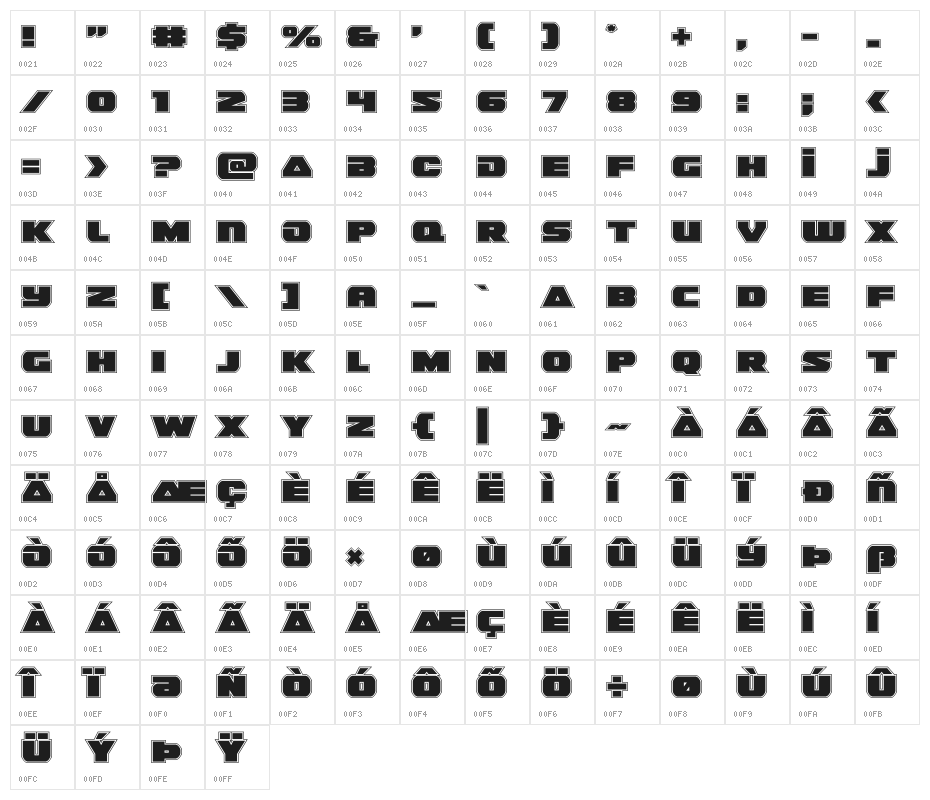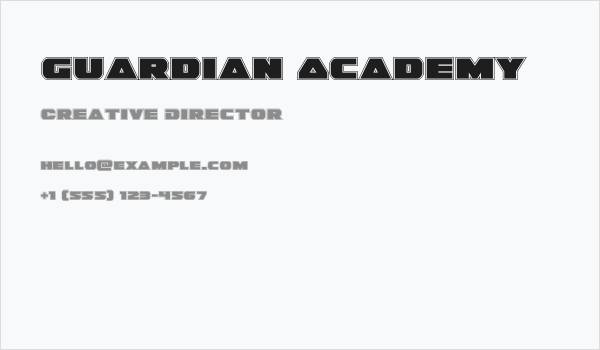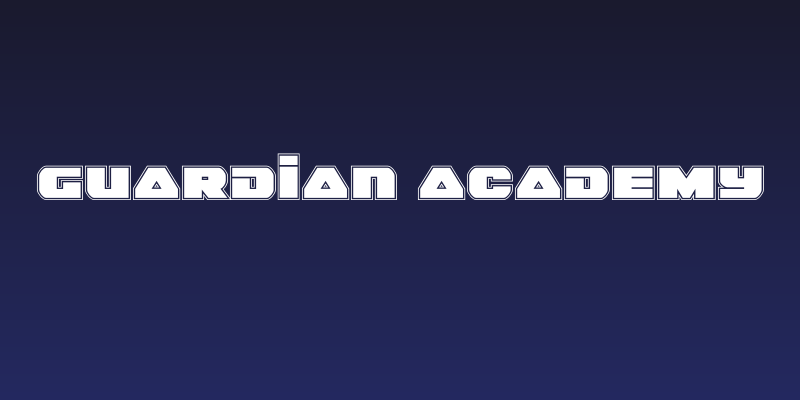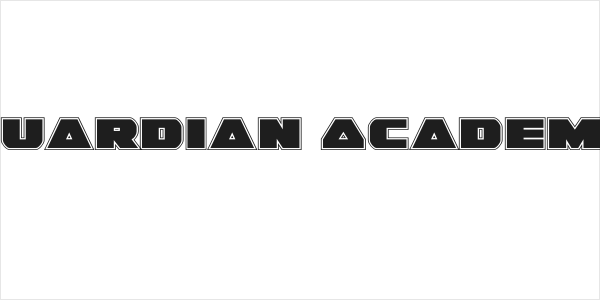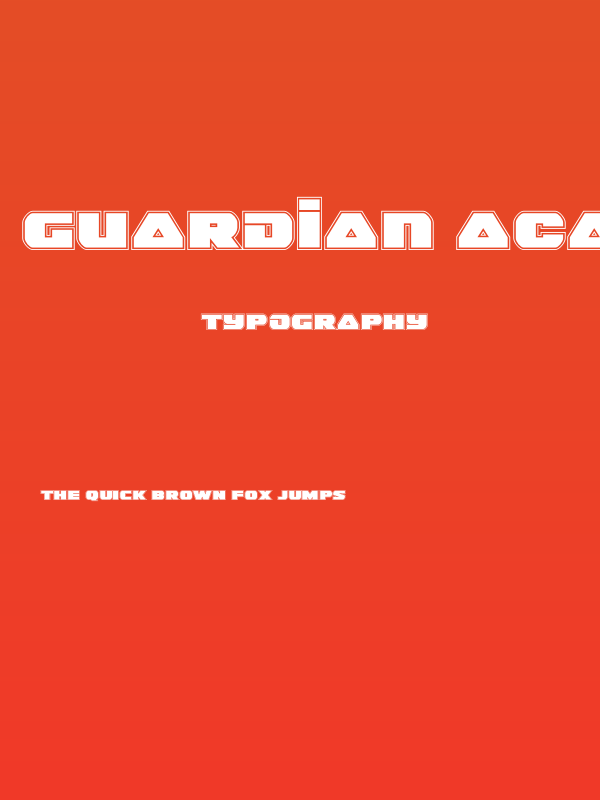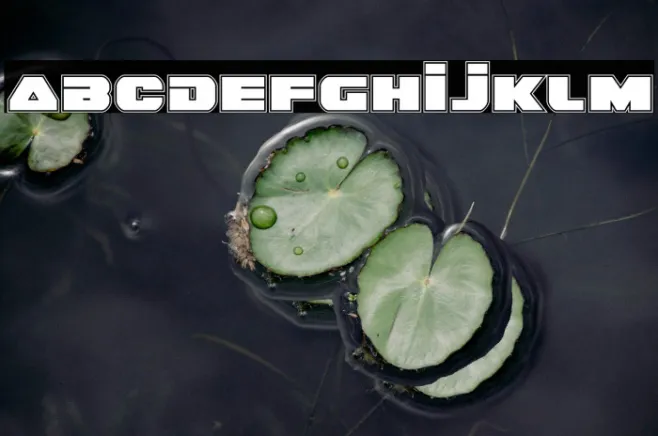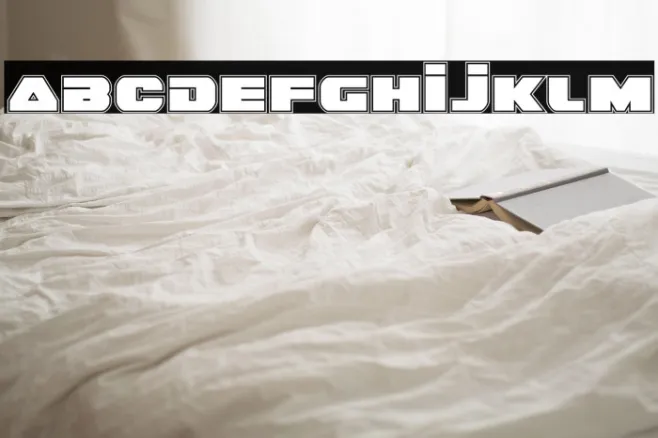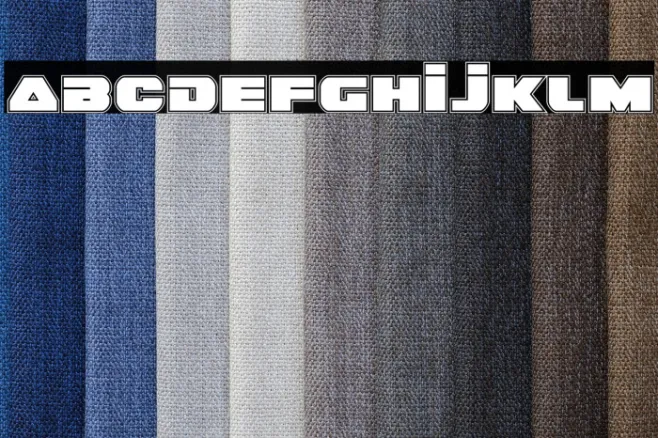
Guardian Academy Font
Guardian Academy Description
This font features a bold, geometric style with strong, angular lines and a solid presence. The characters are designed with a blocky, futuristic aesthetic, incorporating sharp edges and a uniform thickness throughout. The uppercase and lowercase letters maintain a consistent height, creating a cohesive look. Numbers and special characters follow the same design principles, ensuring a harmonious appearance across all glyphs. The font's boldness and distinct style make it stand out, suitable for projects that require a modern and impactful visual statement.
| Proposed Projects | Ideal for video game titles, sci-fi movie posters, technology branding, and modern logo designs. |